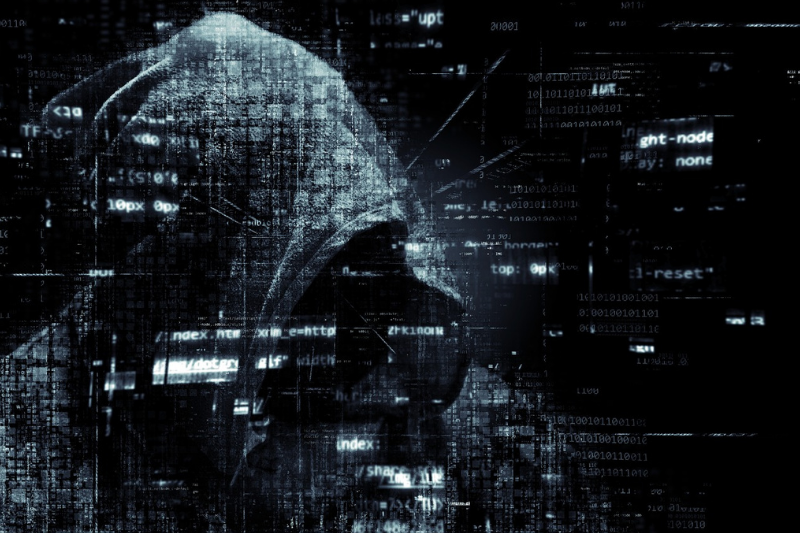
Hacker Font Generator
About the Hacker Font Generator
Hacker fonts have become synonymous with the world of technology, coding, and cybersecurity. These fonts are often associated with the hacker culture, portraying a sense of mystery, sophistication, and edginess. Whether in movies, video games, or cybersecurity-themed designs, hacker fonts add a distinct visual element that captures the imagination of professionals and enthusiasts in the digital realm.
About Hacker Font
The hacker designs are typically monospaced and inspired by the terminal or command line interface. These fonts are designed by Midzic and characterized by uniform spacing between characters, making them ideal for displaying code snippets or computer-generated text. Some commonly used hacker fonts include "Anonymous Pro," "Inconsolata," "Courier New," and "Ubuntu Mono." The fonts often have a futuristic and technological vibe, with sharp lines and geometric shapes that convey a sense of precision and digital prowess.
Hacker Font Generator
The Hacker Font Generator is a valuable online tool that allows users to transform their regular text into various hacker font styles. The Hacker Font Generator offers a range of options for customization. Users can adjust parameters such as font size, color, and background to create the desired effect. Additionally, the generator may offer additional features like code snippets, programming language-specific themes, or simulated terminal interfaces, providing a more immersive experience.